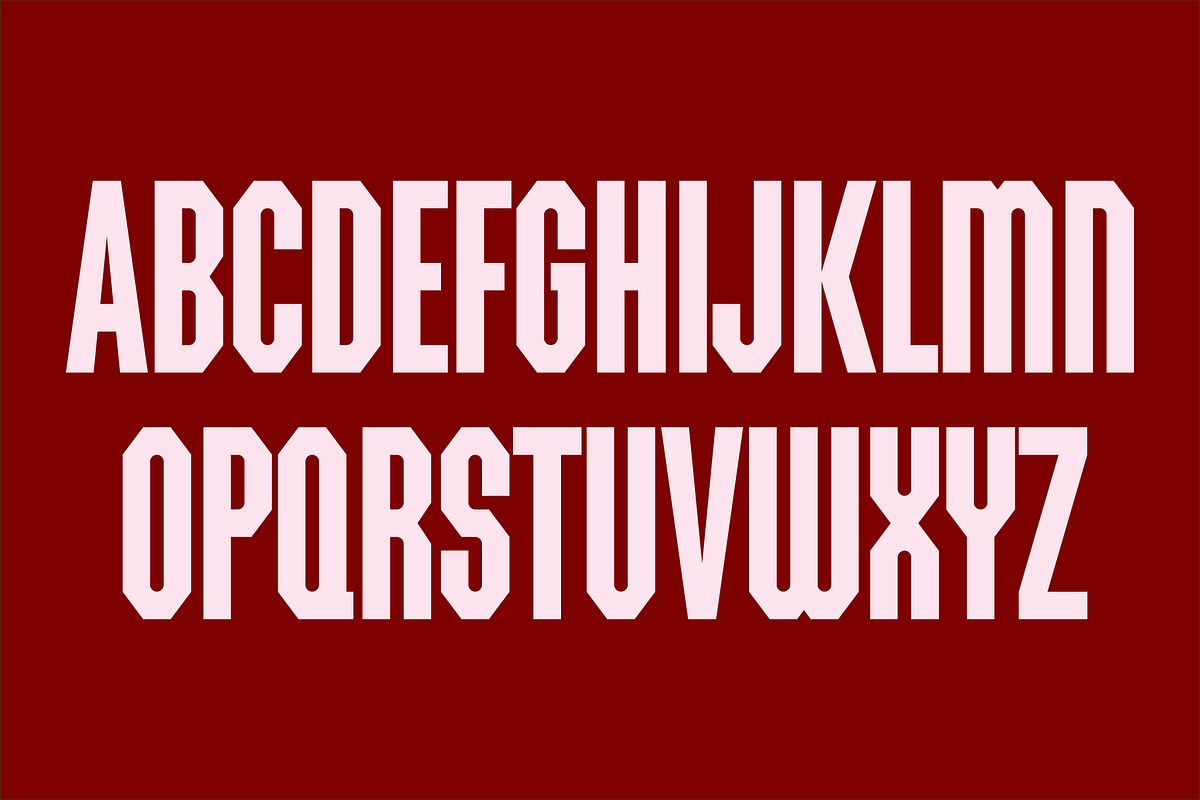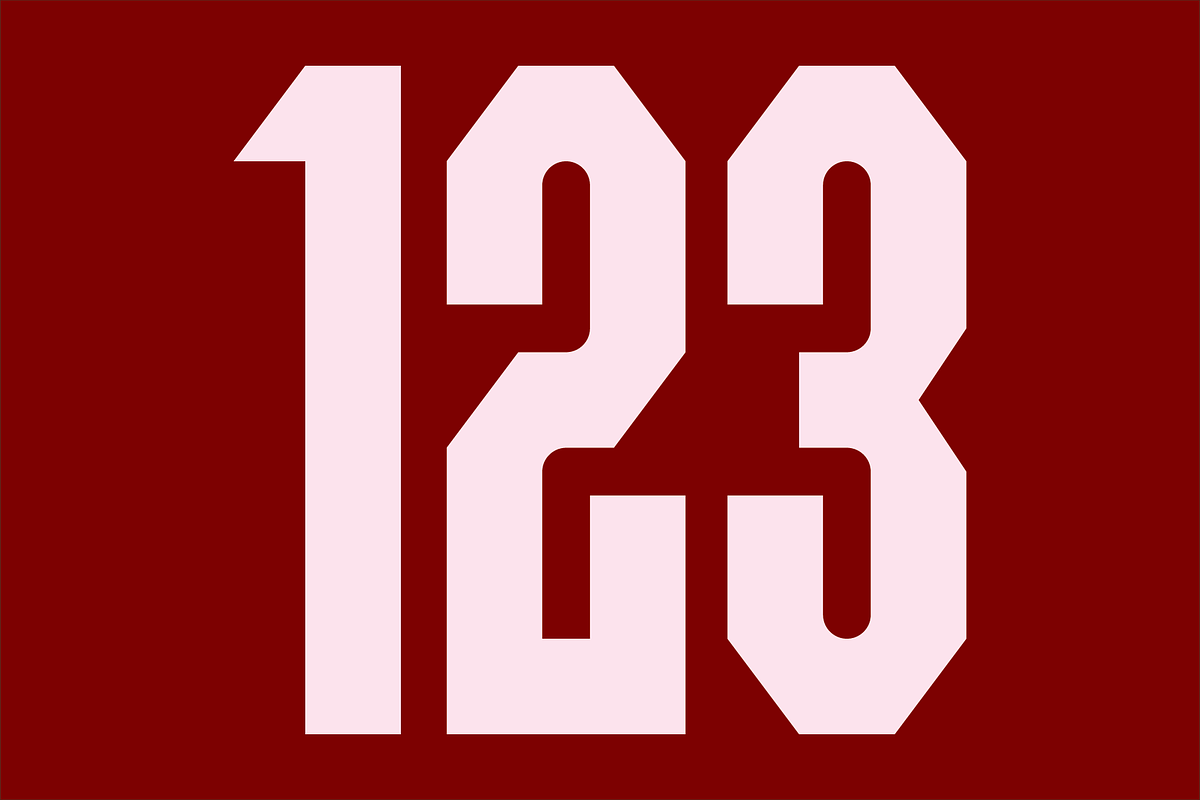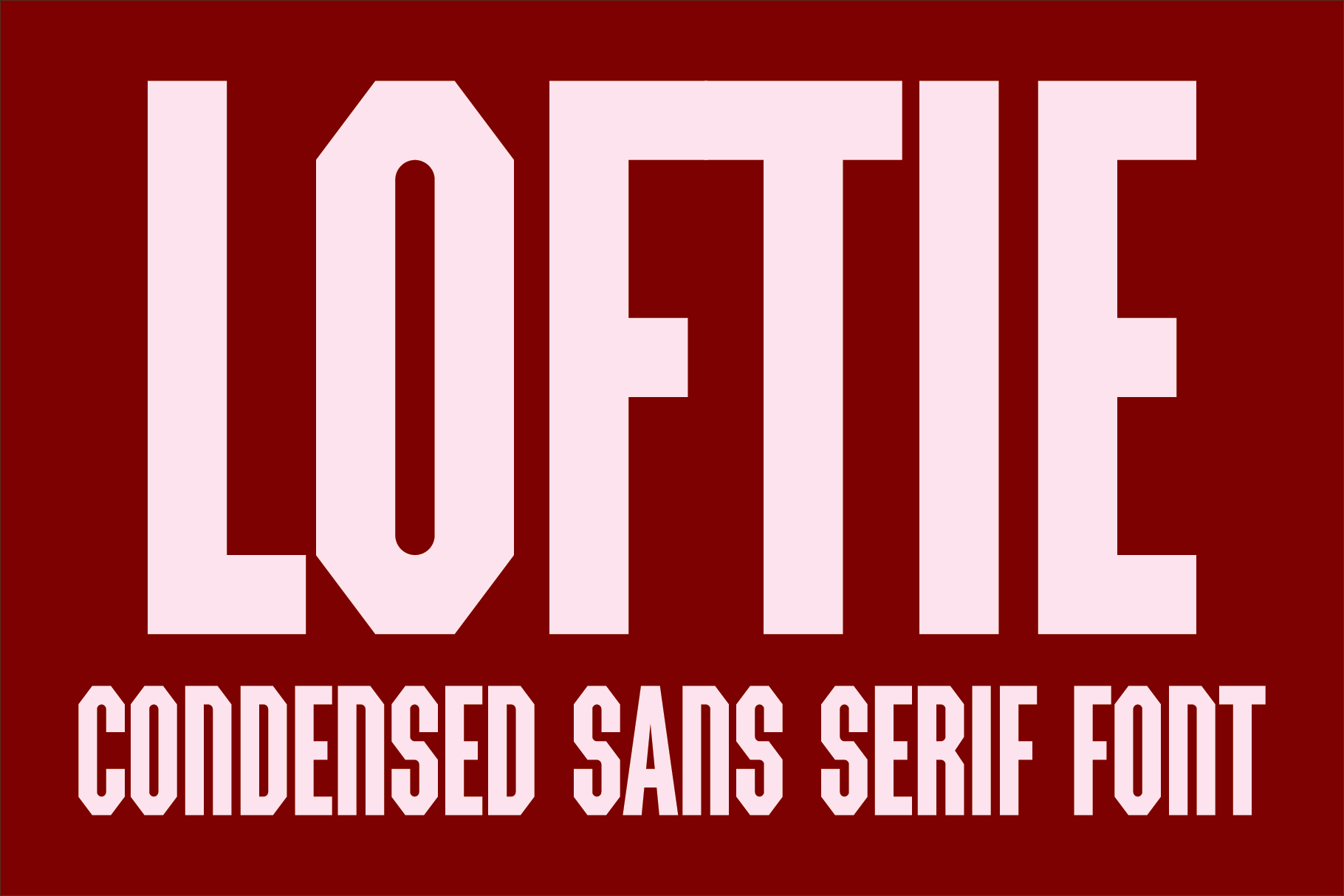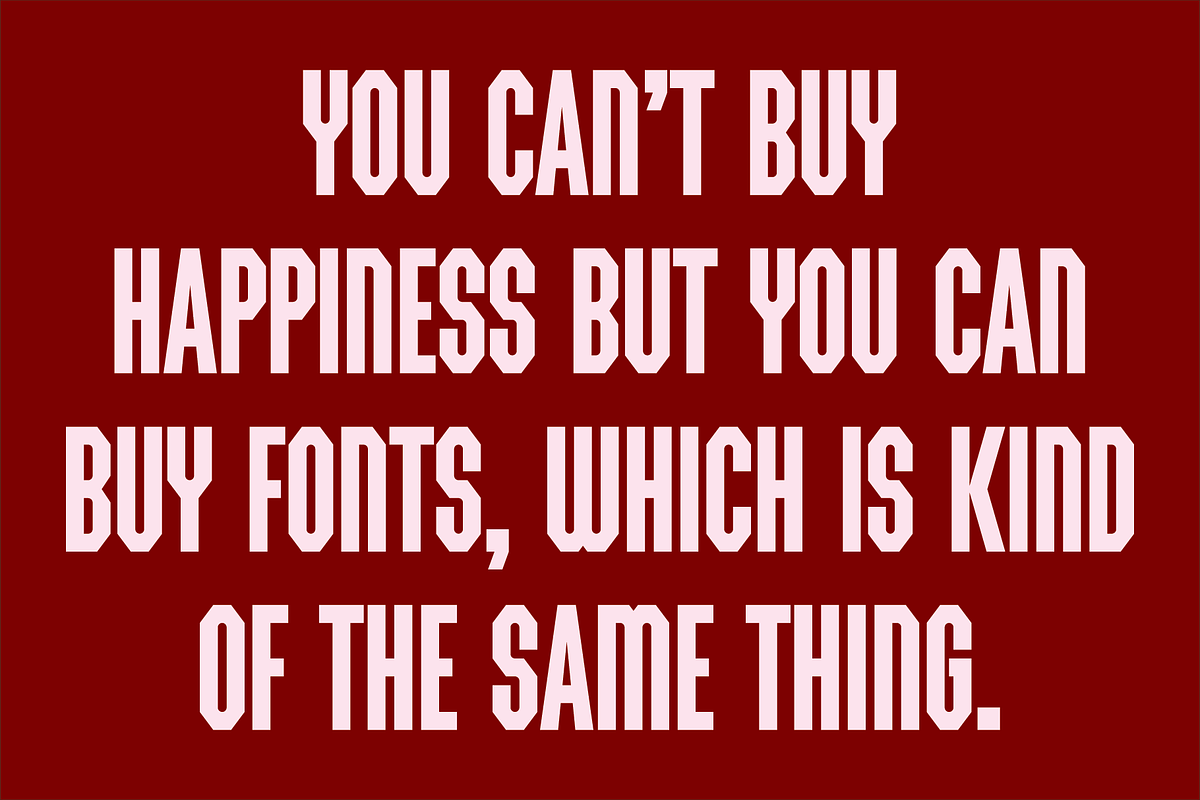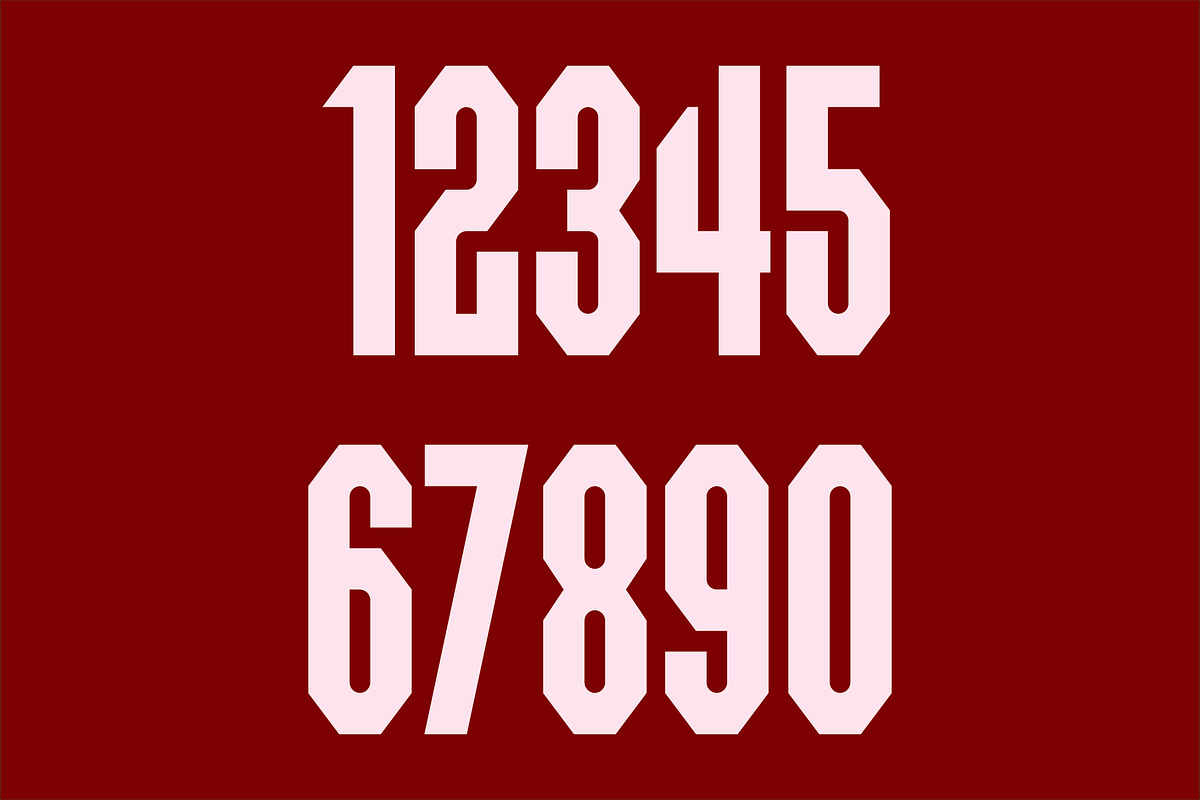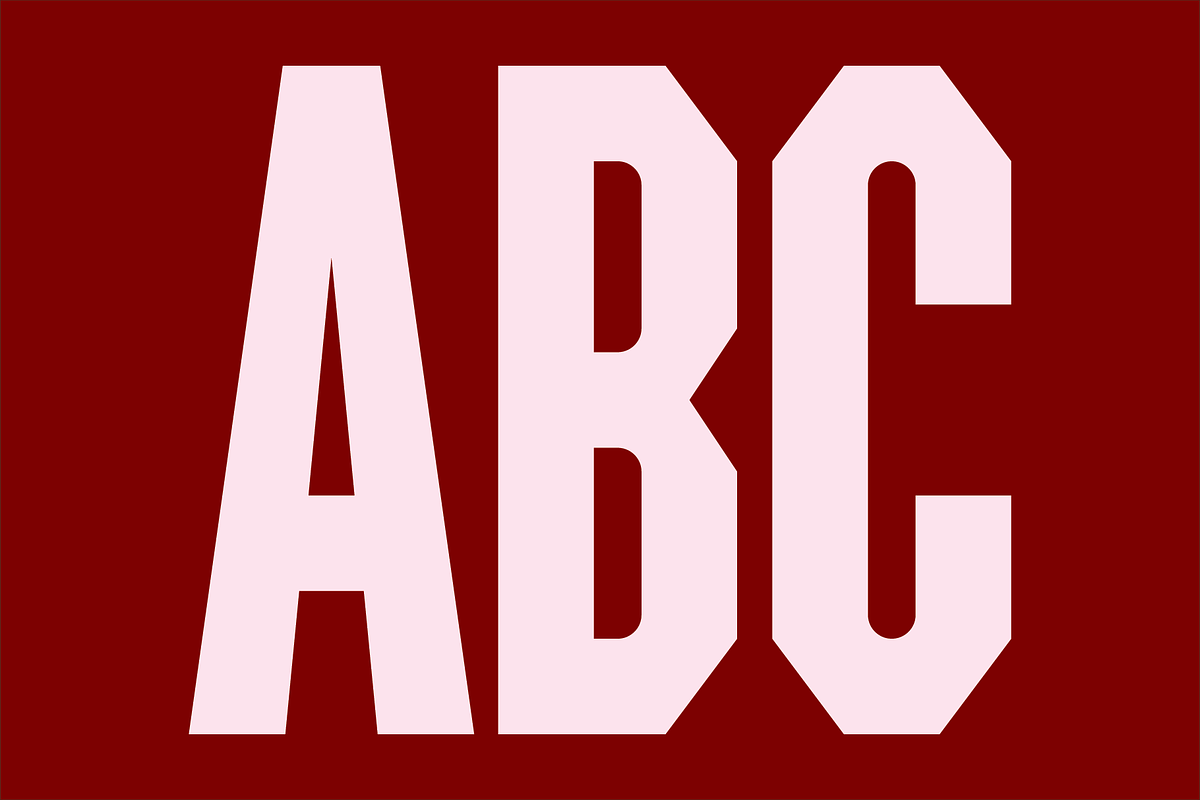
Loftie - Condensed Sans Serif Font
Loftie is an all caps, condensed sans serif font with beveled corner characters. The font is ideal for headlines, titles, branding and small blocks of text.